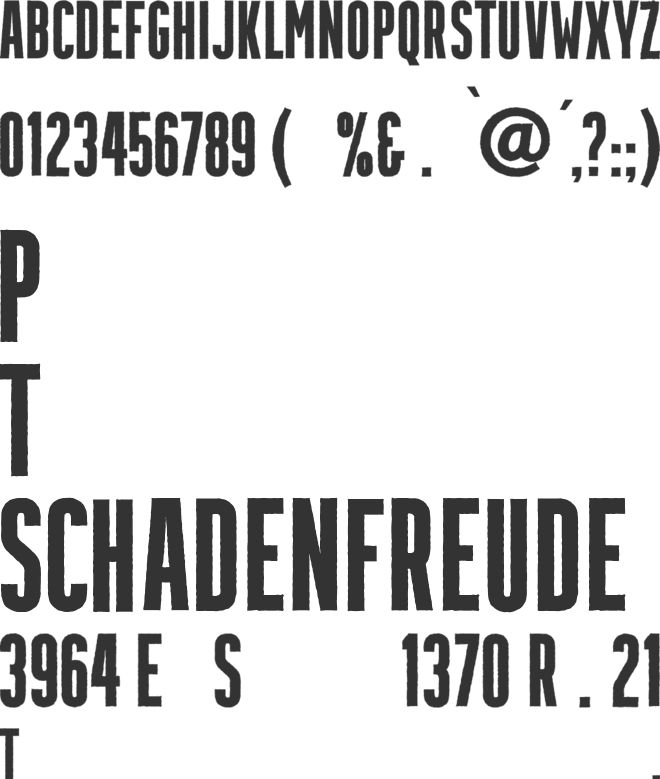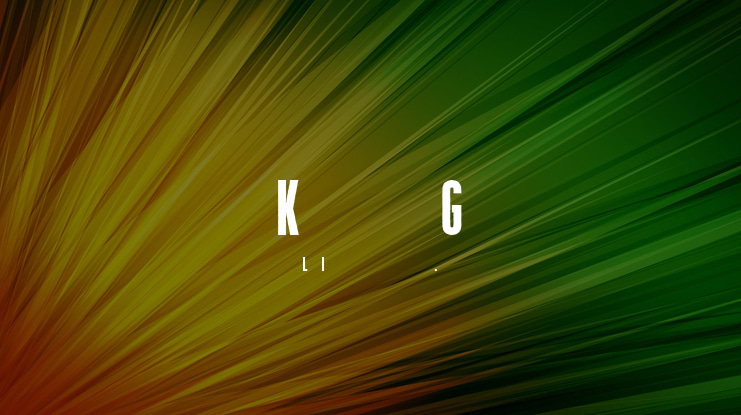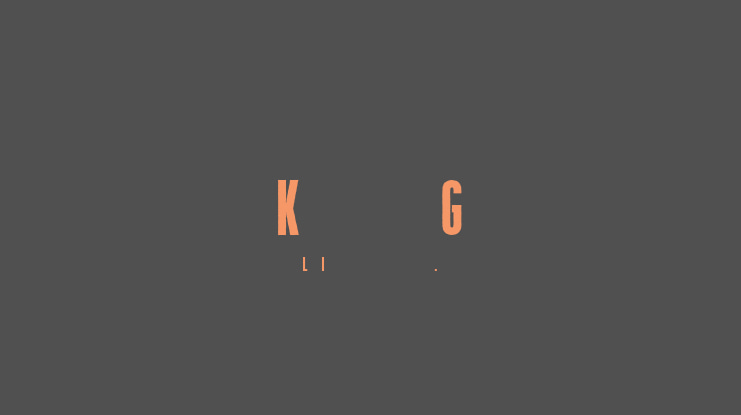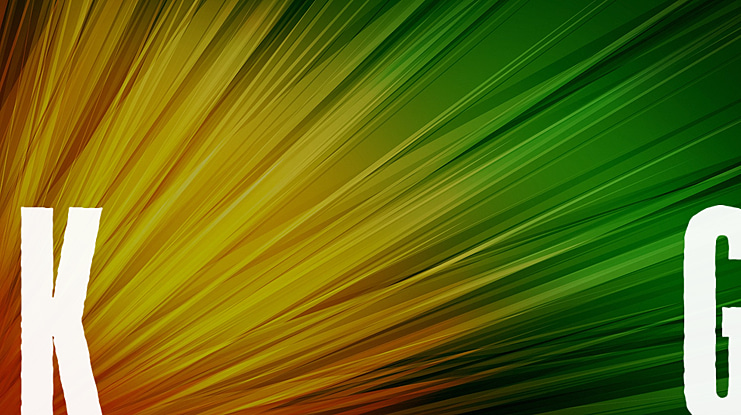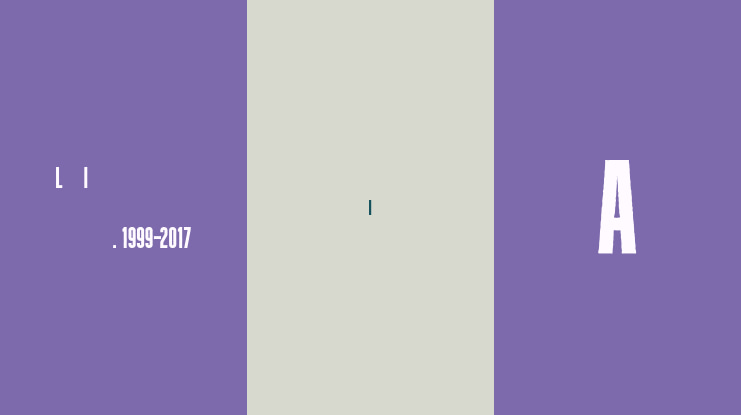
Krechanstaud Gothic Font
A bold and narrow font with slightly worn edges. For organic signs, woodwork, fake vintage t-shirts or whatever your creative mind see fit.